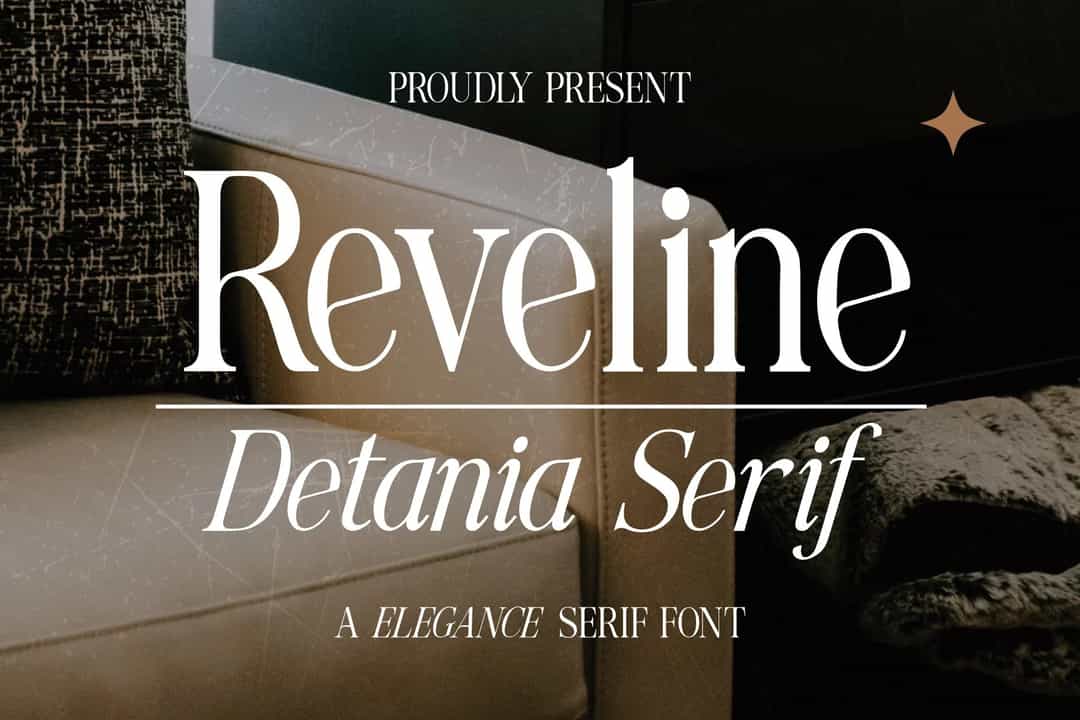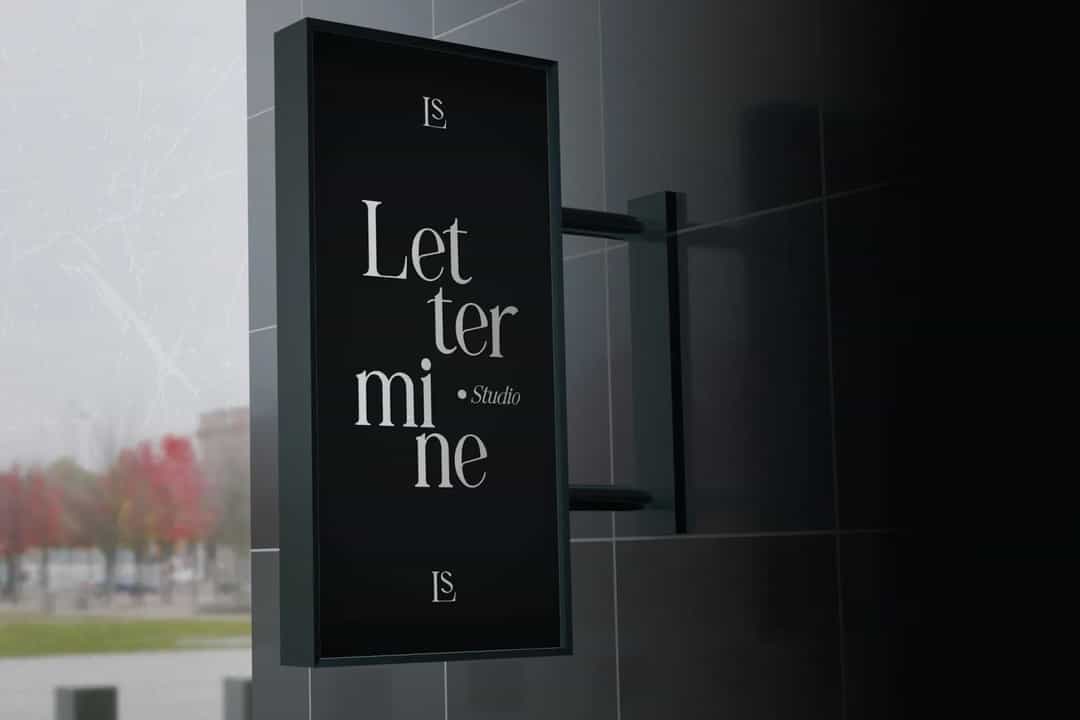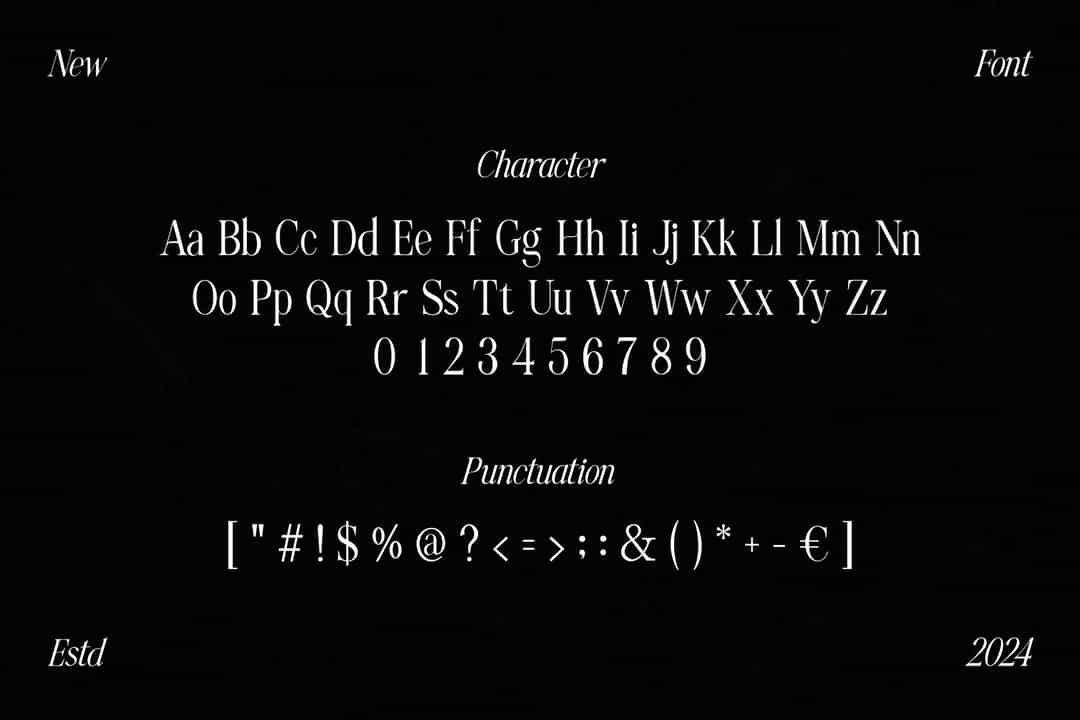
Reveline Detenia, our exquisite and elegant Serif font, was carefully created to add classic elegance to your designs. It skillfully marries the traditional beauty of times past with modernity for an eye-catching appearance and adds sophistication.